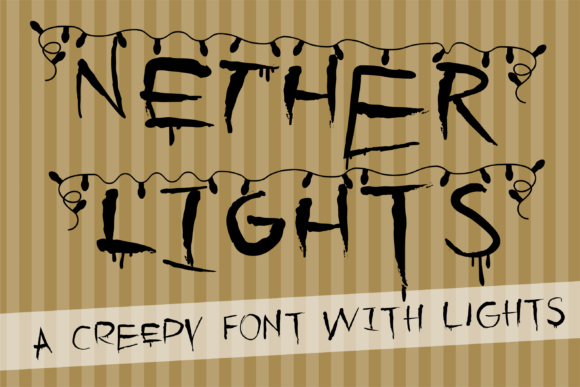
Dive into a whimsical realm where festive cheer illuminates your designs! Introducing Nether Lights Font, the enchanting display font adorned with twinkling Christmas lights that evoke the magic of your favorite holiday TV series.
With its unique drippy-paint style, Nether Lights resembles a canvas adorned with festive hues. Each character stands tall, adorned with a row of Christmas lights, casting an ethereal glow upon your words.
The space bar transforms into a serene row of blank lights, inviting you to sprinkle stardust between your sentences. And when you embrace the embrace of brackets, they become the perfect "ends" to your glowing masterpiece.
Let Nether Lights guide your imagination to new heights. Its captivating design will illuminate your designs, whether it's a heartfelt greeting card, an eye-catching social media post, or a website that sparkles with holiday cheer.
Indulge in the festive enchantment of Nether Lights Font today and let your designs glow with the warmth of a thousand Christmas lights!